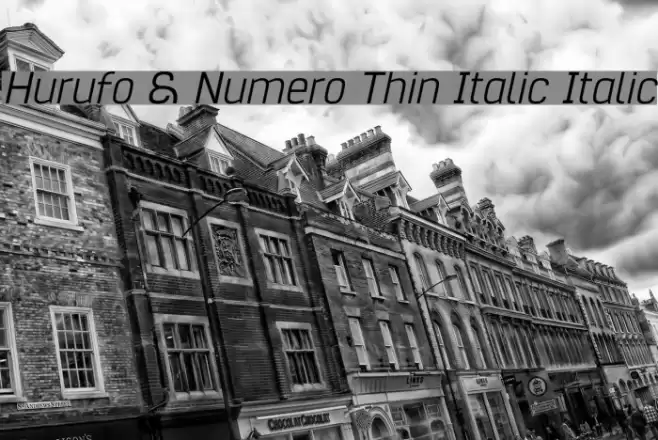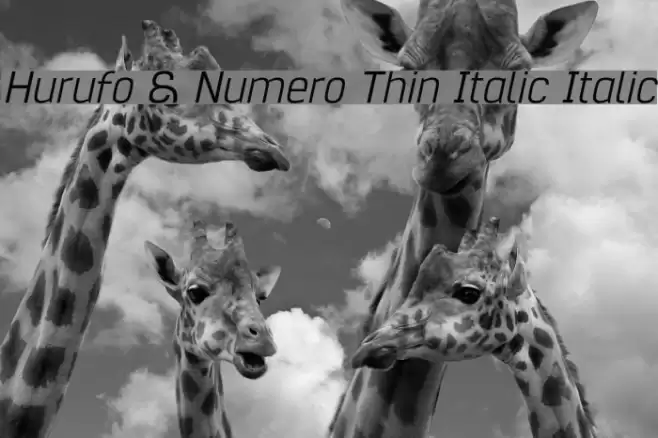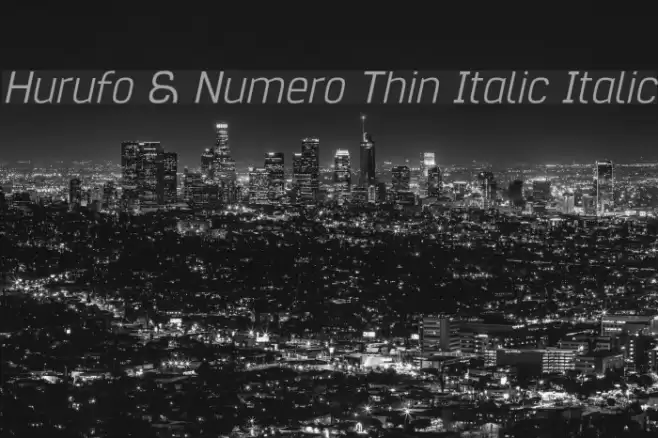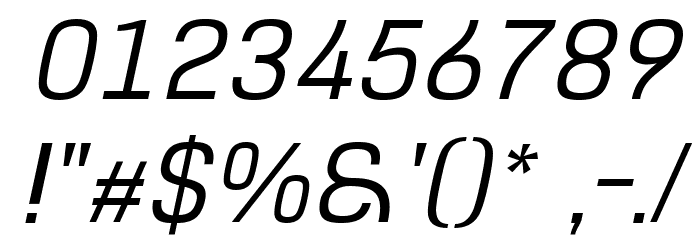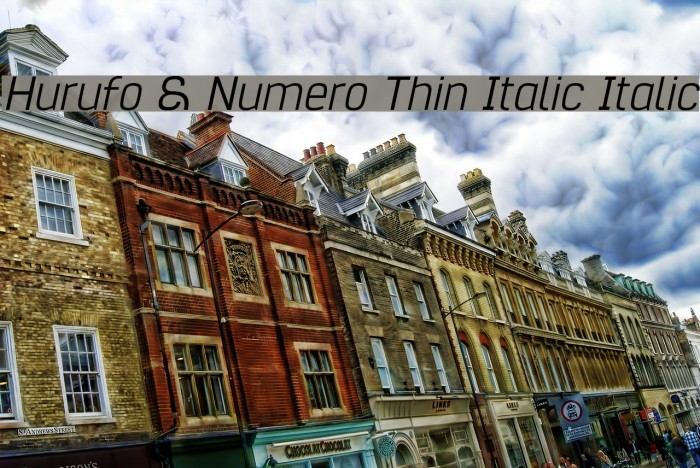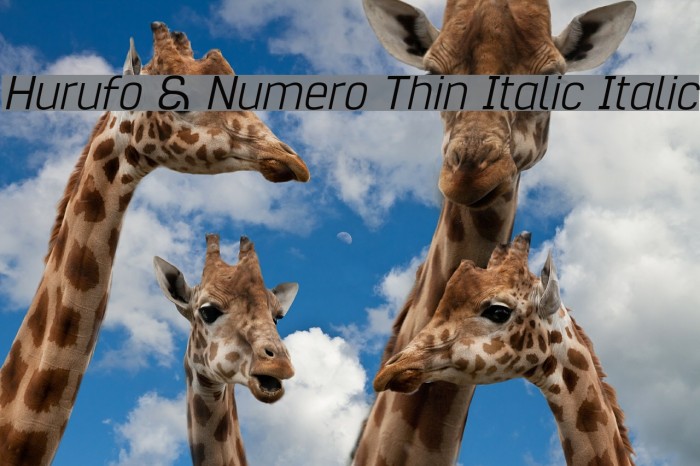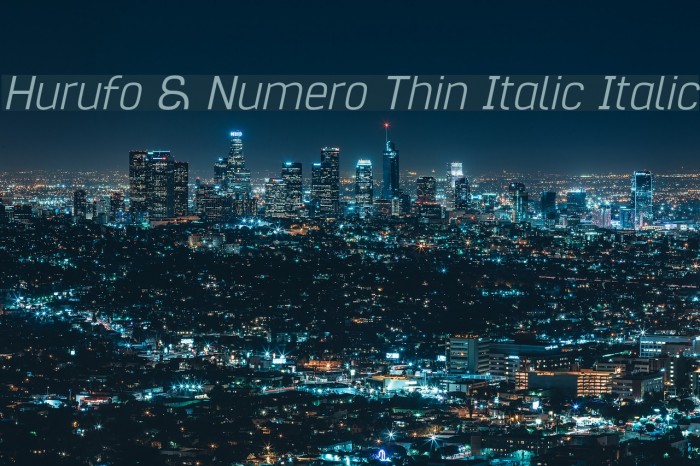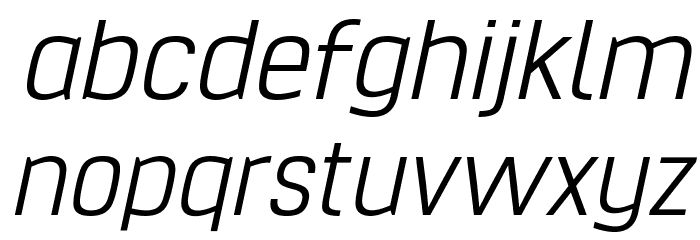
Hurufo & Numero Thin Italic Italic Font
Hurufo & Numero Thin Italic Italic Description
This font features a sleek and modern design with a thin, italicized style. The characters are slightly slanted, giving a sense of motion and elegance. The strokes are uniform and consistent, with a clean and minimalist appearance. The uppercase and lowercase letters maintain a harmonious balance, while the numerals and special characters are clearly defined and easy to read. This font's simplicity and sophistication make it versatile for various design applications.
A sleek, thin, italicized font with a modern and minimalist design from Uncategorized fonts.